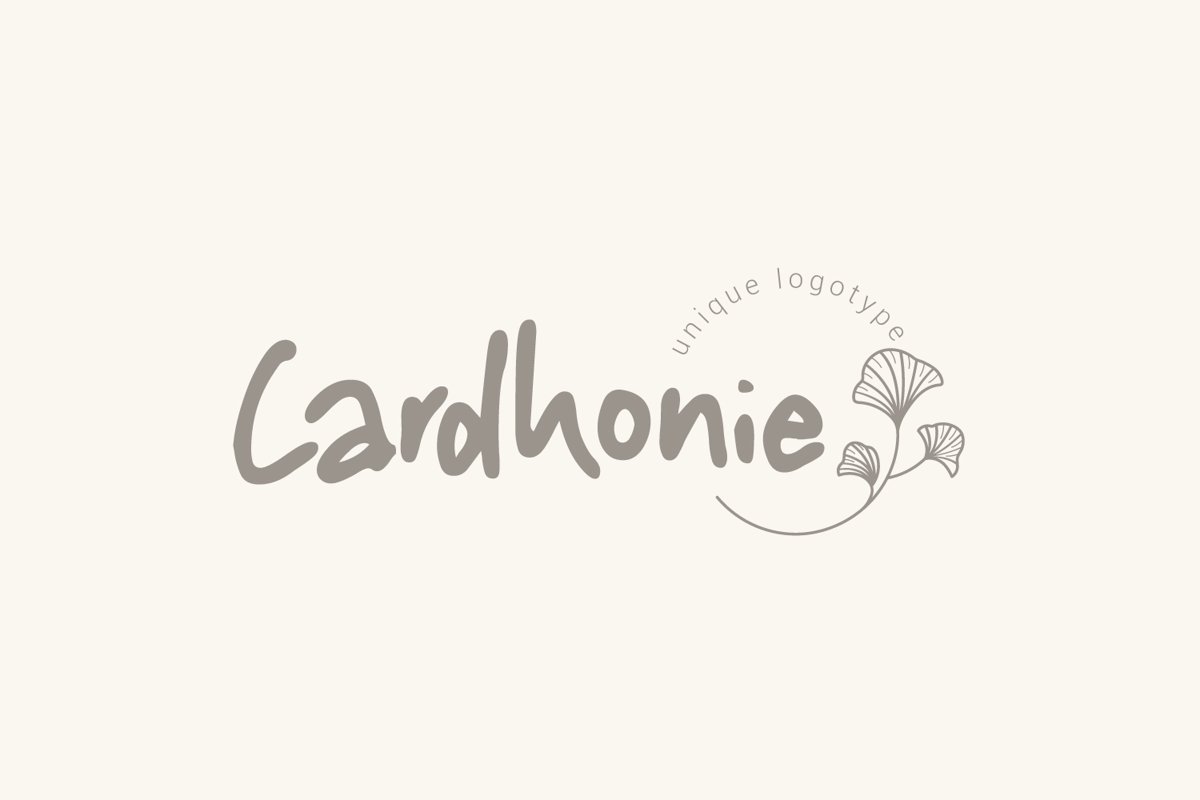
Cardhonie
Cardhonie is a cute and elegant handwritten font, carefully handcrafted to become a true favorite. Its casual charm makes it appear wonderfully down-to-earth, readable and, ultimately, incredibly versatile.